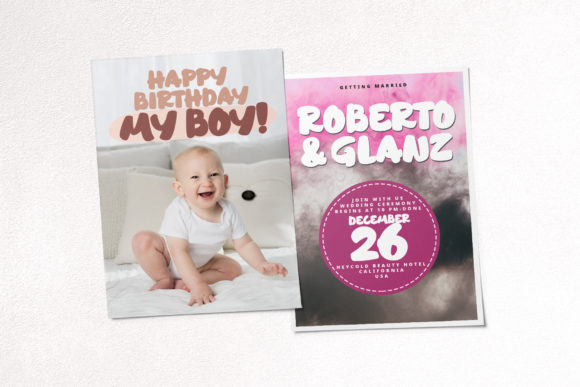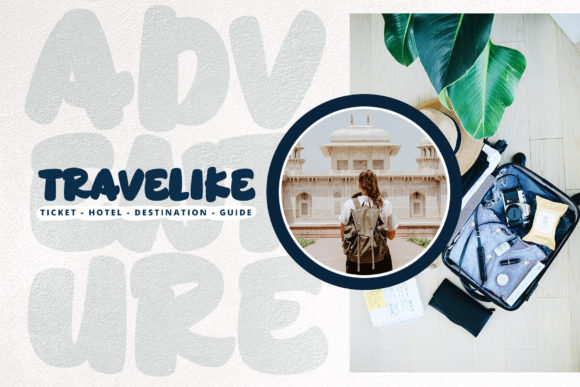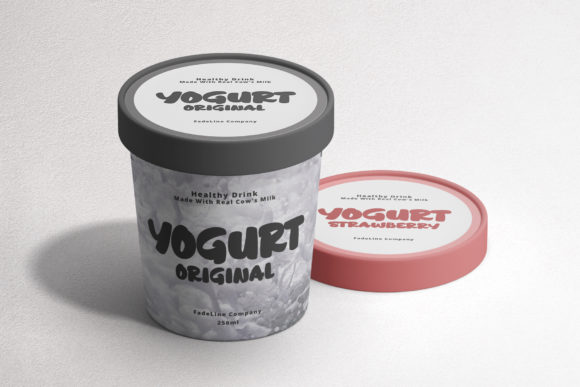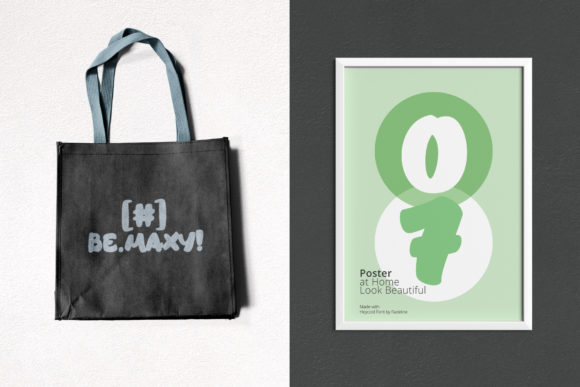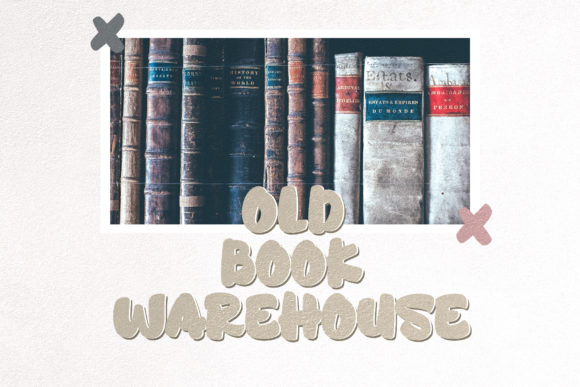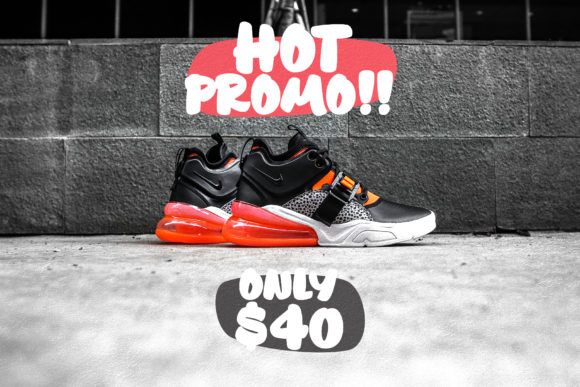
Introduction to Heycold Font
As a designer, have you ever found yourself stuck in a creative rut, searching for the perfect font to bring your project to life? I know I have. That’s why I’m excited to share with you a game-changing design resource that’s sure to put a smile on your face – the Heycold Font.
Imagine a font that’s as sweet as it is stylish, with a bubbly personality that’s perfect for children’s designs. When combined with bright, eye-catching colors, the Heycold Font is sure to capture the hearts of your audience. With its transparent background and high-quality design, this font is a must-have for any creative project that needs a touch of whimsy and fun.
Key Features of Heycold Font
- High-quality design resource with a transparent background, perfect for creative projects.
- Includes a range of unique and stylish characters, ideal for adding a touch of elegance to your designs.
- Supports multiple languages, making it a versatile choice for designers working on international projects.
- Designed to be highly legible, even at small font sizes, making it perfect for a variety of design applications.
- Comes with a comprehensive character set, including uppercase and lowercase letters, numbers, and special characters.
Honest Review: Heycold Font
I recently stumbled upon the Heycold Font, and I must say it’s been a great addition to my design resource library. The free download was a pleasant surprise, and I was excited to experiment with it on my latest creative project.
One of the things that really caught my attention was the transparent background option. It’s always a plus when a font offers this feature, as it gives designers more flexibility when working with complex backgrounds. ✨
Another aspect that I appreciated was the high-quality design of the font itself. The letterforms are clean, and the weight distribution is spot on. It’s clear that the creators put a lot of thought into crafting a unique and aesthetically pleasing font.
Here are some of the key features that stood out to me:
- High-quality design with clean letterforms
- Transparent background option for added flexibility
⚠️ However, I did encounter a few limitations while working with the Heycold Font. The font family is relatively small, and it would be great to see more weights and styles added in the future.
Overall, I’m impressed with the Heycold Font, and I would definitely recommend it to fellow designers looking for a high-quality, free font to add to their library.
Tips for Getting the Most Out of Heycold Font
Use the font in conjunction with a high-quality image or background to create a visually appealing design. Experiment with different font sizes and styles to add depth and interest to your project. You can also use the font to create a consistent branding element in your design.
The Heycold Font is suitable for a wide range of creative projects, including logos, business cards, brochures, and presentations. It’s also a great choice for designers who want to add a touch of elegance and sophistication to their designs.
- Use a subtle texture or gradient to add depth to the background.
- Combine with bold lines or geometric shapes for a modern look.
- Experiment with different font sizes and colors to create visual interest.
Project 2: Retro-Style Sign Design
Get a blast from the past with the Heycold Font, a free download that’s perfect for creating high-quality retro-style sign designs.